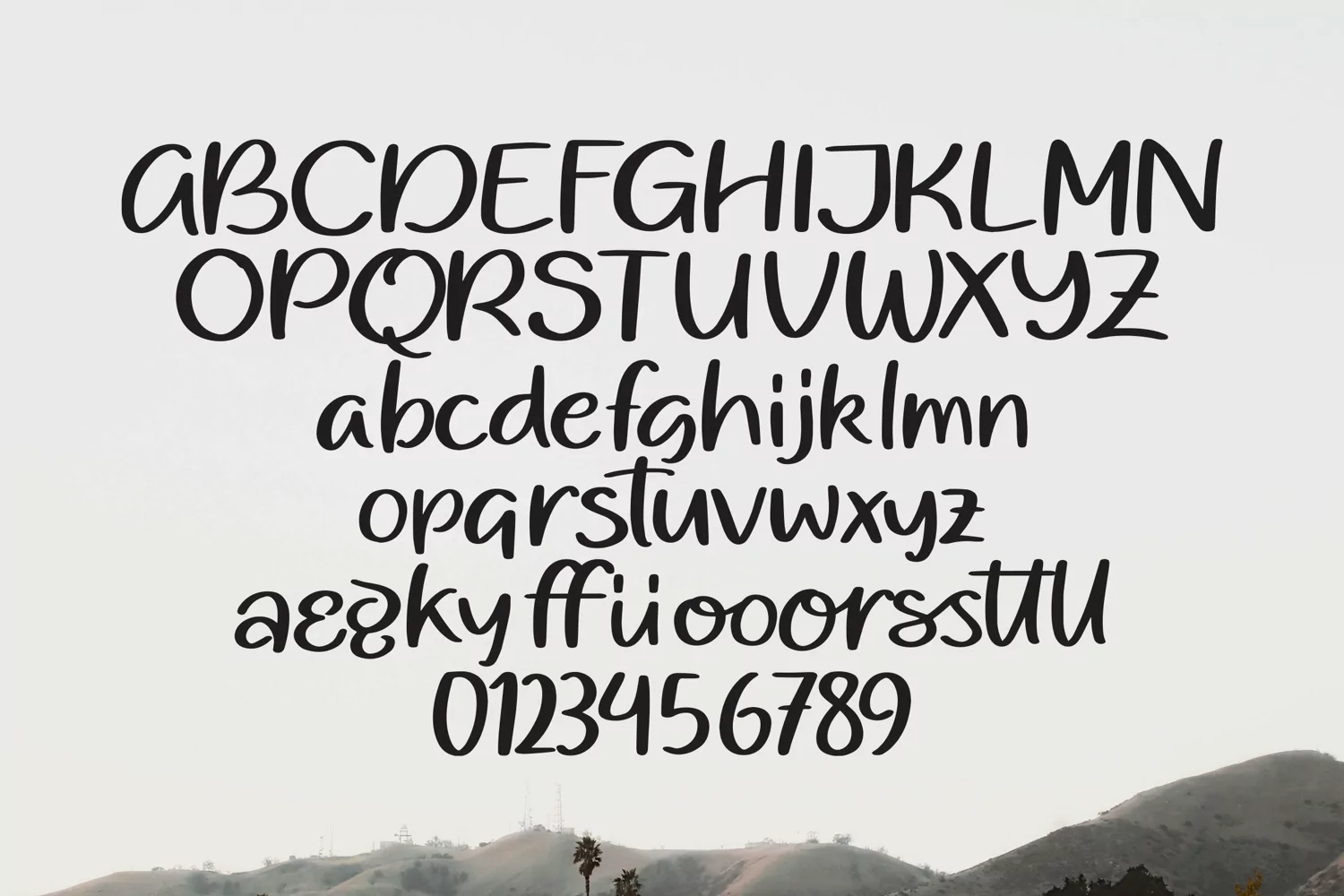
Blossom Dreams - Casual Handrawn Font that contain lowercase, uppercase, symbol, and also support multi language. There’s a lot ligatures in this font. This Font also comes with ligatures, alternates and many more. this font suitable for fashion, branding, catalog and other design what you want.
Blossom Dreams